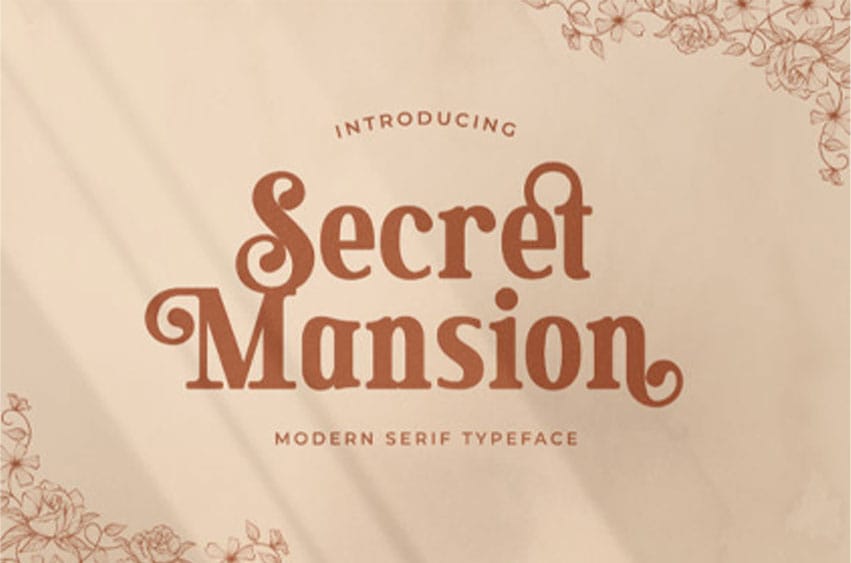
Secret Mansion Font is an elegant serif font that blends traditional influences into a contemporary aesthetic.
Neatly crafted, this font will allow you to achieve an exquisite, yet subtle look and maximum versatility.